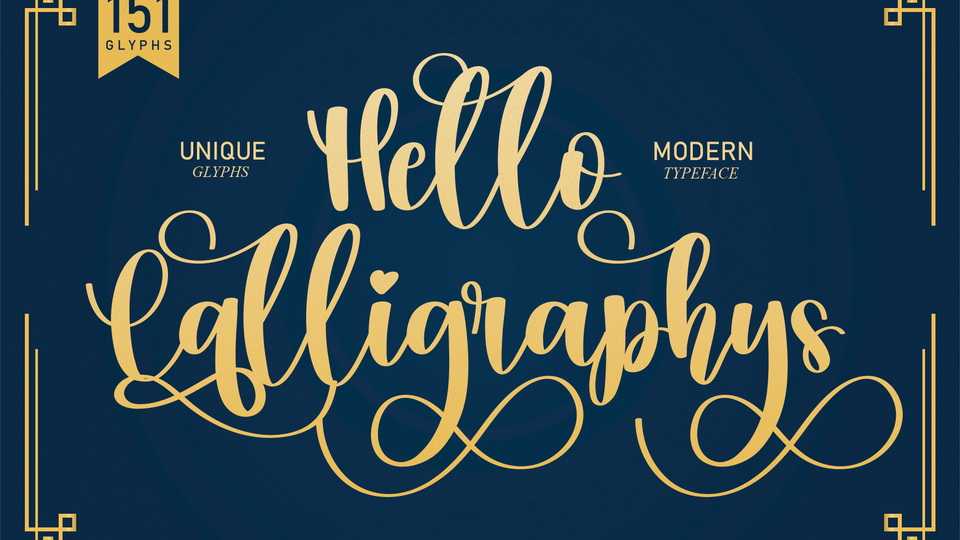
Hello Calligraphys Font › Fontesk – Download Grátis
Download Hello Calligraphys font, a lovely and delicate script typeface that exudes elegance and class. Hello Calligraphys is perfect for wall displays, wedding invitations, social media post logos, advertisements, product packaging and more.